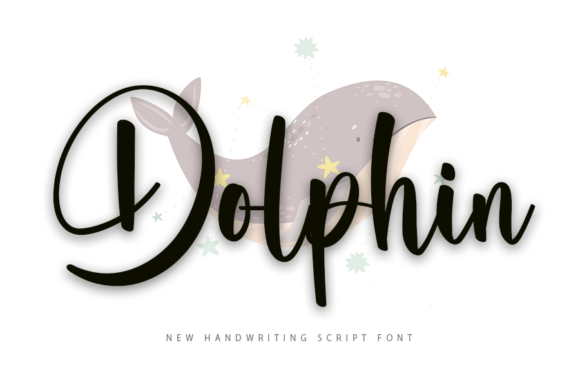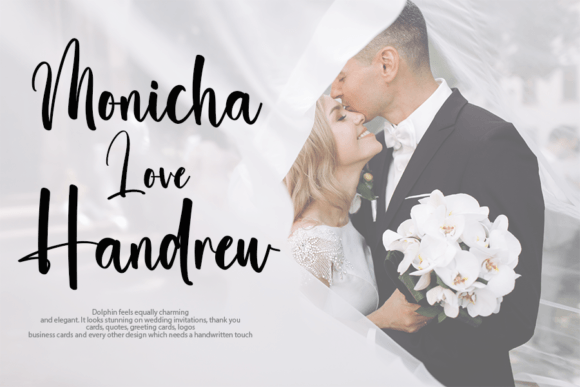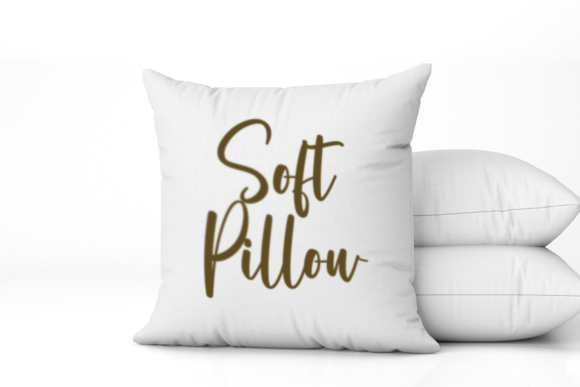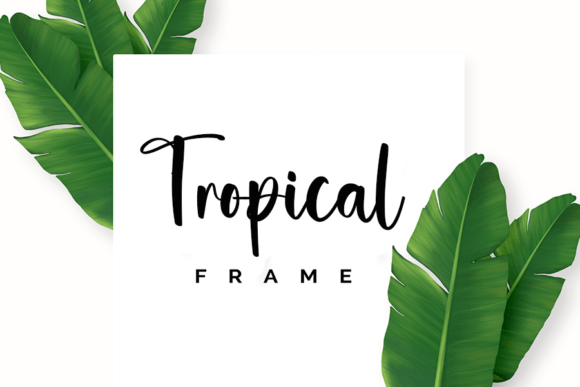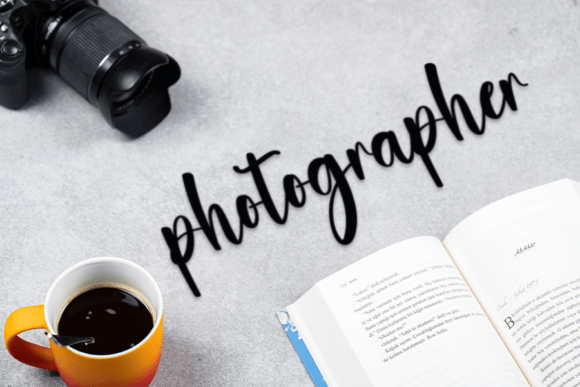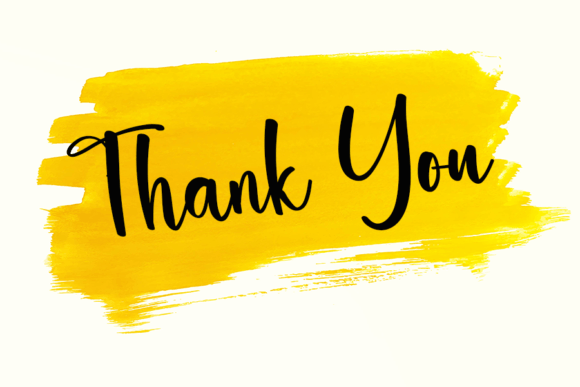
Dolphin Font
About Dolphin Handwritten Font
Dolphin Handwritten Font is a gorgeous script typeface designed to make your projects stand out with its elegant and curvy lines. Crafted with precision and style, it blends modern charm with timeless beauty, giving designers a versatile resource for both personal and professional use. Because of its sophisticated look, Dolphin Handwritten Font is perfect for product packaging, branding, magazine covers, wedding stationery, and social media designs.
A Gorgeous Typeface with Elegant Curves
Handwritten fonts are admired for their warmth, and Dolphin Handwritten Font captures that appeal with graceful flow. Its balanced letterforms and smooth lines create a natural rhythm that brings refinement to any layout. In addition, its classic yet contemporary design makes it suitable for both formal projects and playful creative works.
Perfect Typeface for Invitations and Wedding Designs
When it comes to special occasions, Dolphin Handwritten Font shines. For example, it adds romance and style to wedding invitations, thank-you cards, and event programs. Moreover, its flowing strokes bring an authentic, heartfelt touch to greeting cards, menus, and holiday stationery, making them more memorable.
A Script Typeface for Branding and Packaging
Businesses and creatives can rely on Dolphin Handwritten Font to build strong brand identities. It enhances logos, boutique packaging, and promotional materials with elegance. Furthermore, it adapts seamlessly to advertisements, magazine layouts, and digital branding. When paired with clean sans serif fonts, it creates a modern and polished look.
Flexible Across Print and Digital Media
Another advantage of Dolphin HandwrittenFont is its adaptability. In print, it elevates brochures, posters, and merchandise designs. Digitally, it integrates beautifully into websites, e-commerce stores, and social media graphics. Since it scales clearly from small icons to large displays, it works reliably across all design platforms.